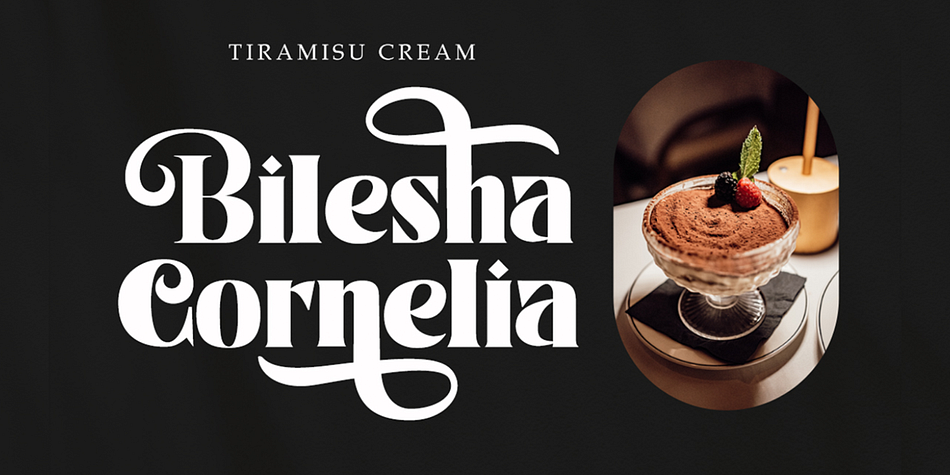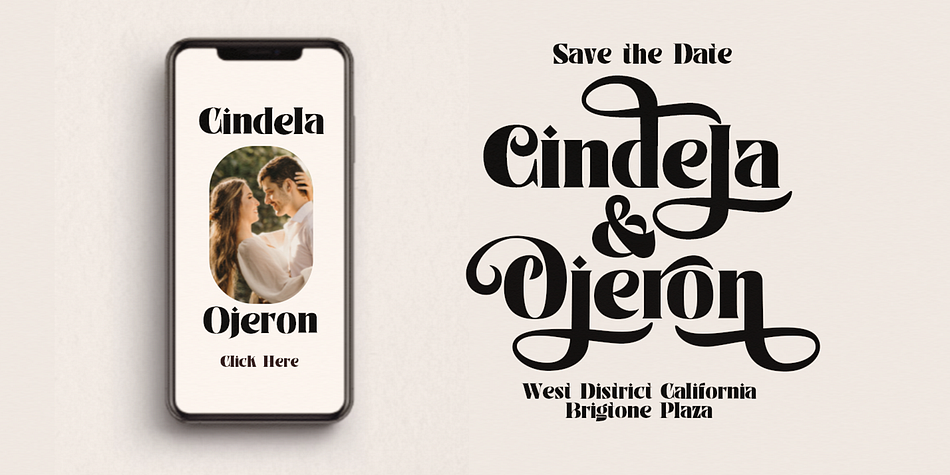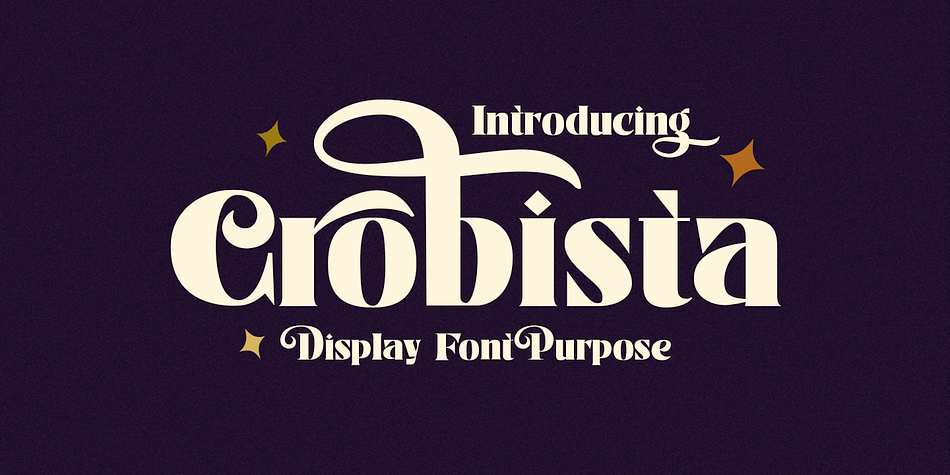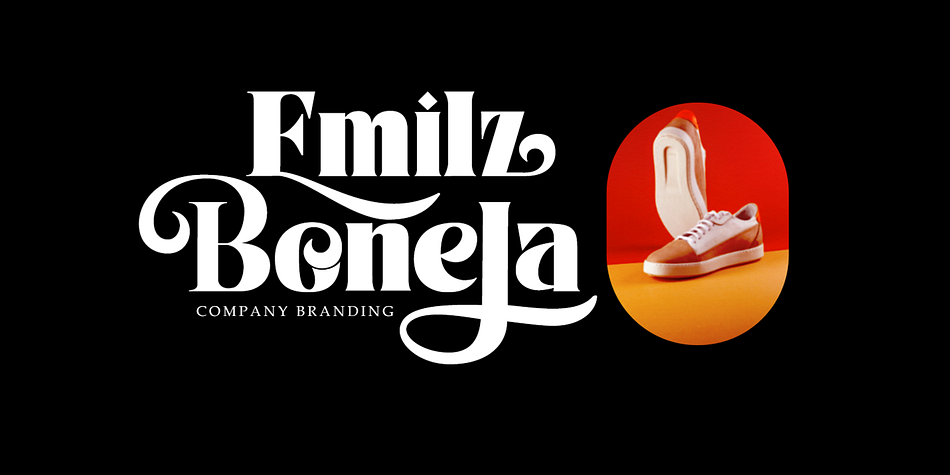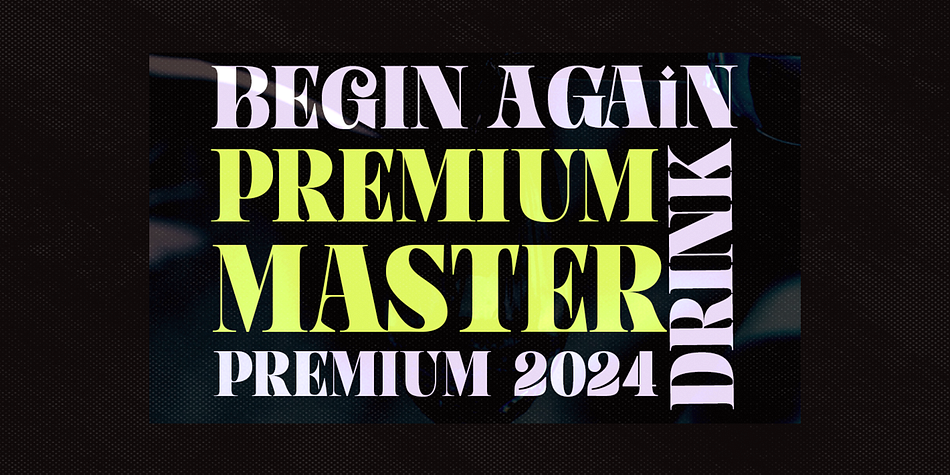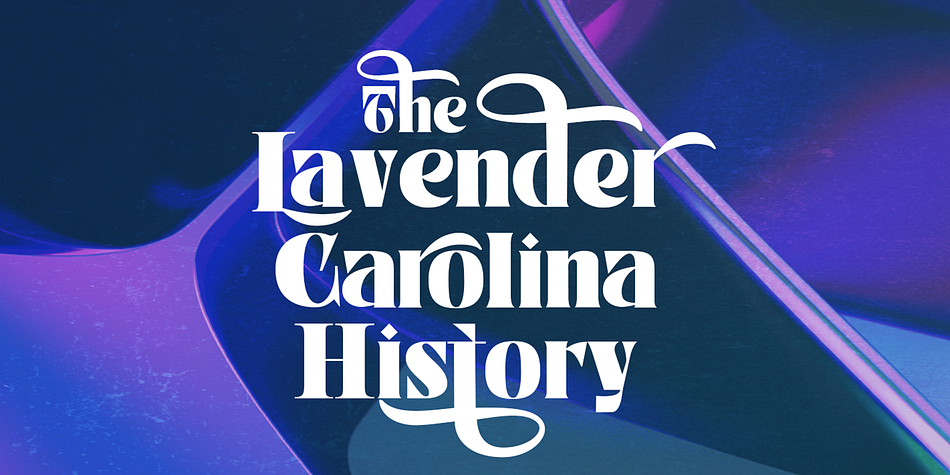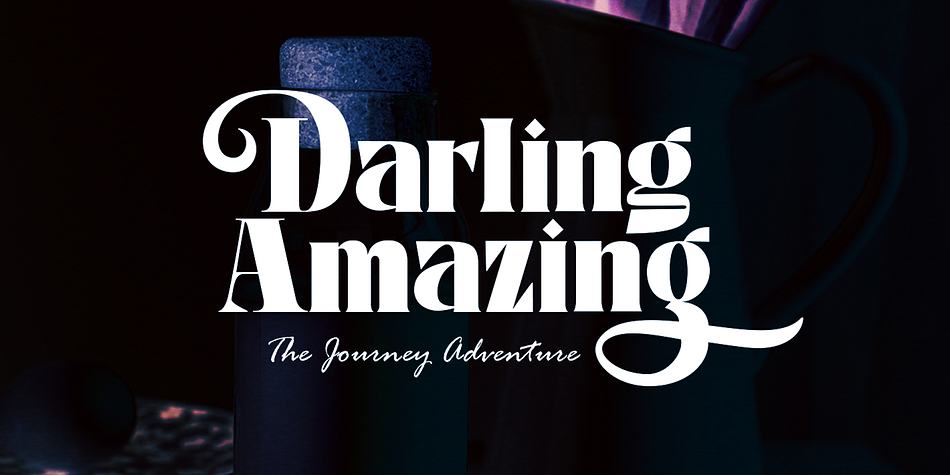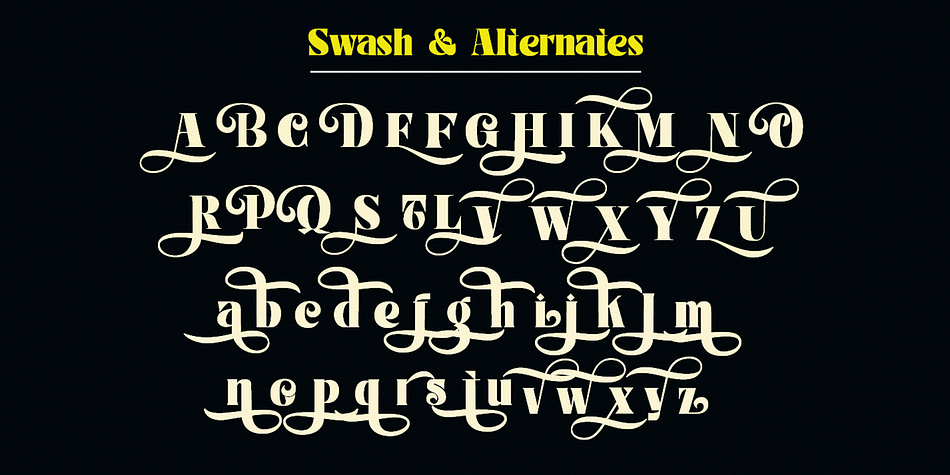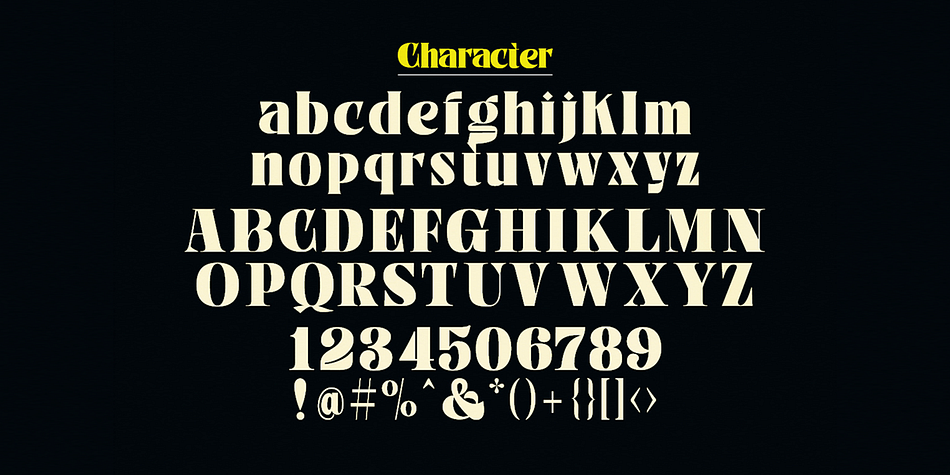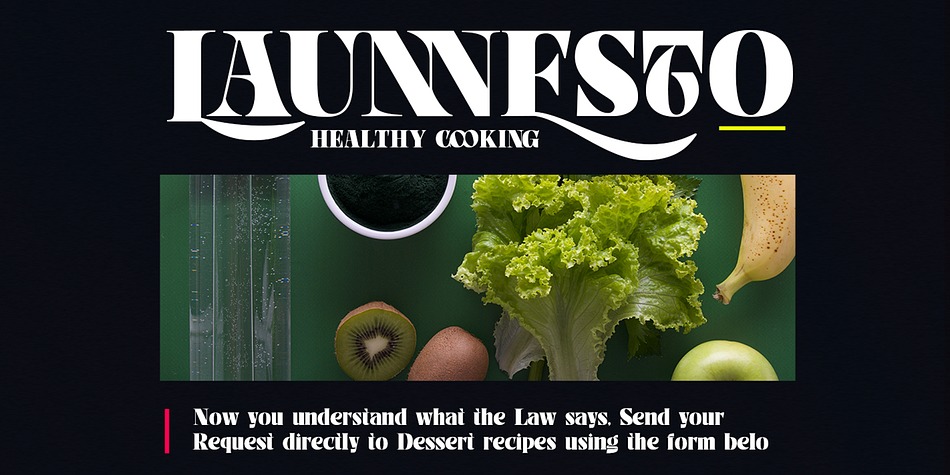
Crobista
Crobista is a display serif font family published by Gatype.
Crobista is a versatile font with a clean, sleek shape. The overall typeface is strong to bring order and harmony between letters. Best used as Instagram, poster, web design, magazine, logo or product.